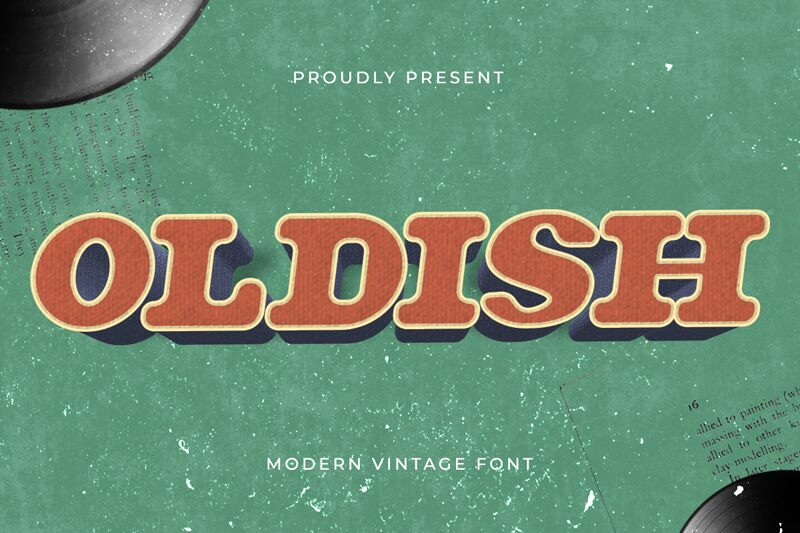
Oldish by Kong Font is a striking display typeface that effortlessly captures the charm of retro design. Its bold presence combined with an expanded structure creates a visually captivating experience, making each letter feel both assertive and inviting. With its unique character forms and playful curves, Oldish radiates an air of nostalgia while remaining fresh and contemporary.
Perfect for attention-grabbing headlines, vintage-inspired branding, or vibrant posters, this font breathes life into any project. Whether you’re designing a café menu or creating an eye-catching event invitation, Oldish’s distinctive appeal ensures your message stands out beautifully. Embrace the allure of this extraordinary typeface to infuse your work with personality and style.